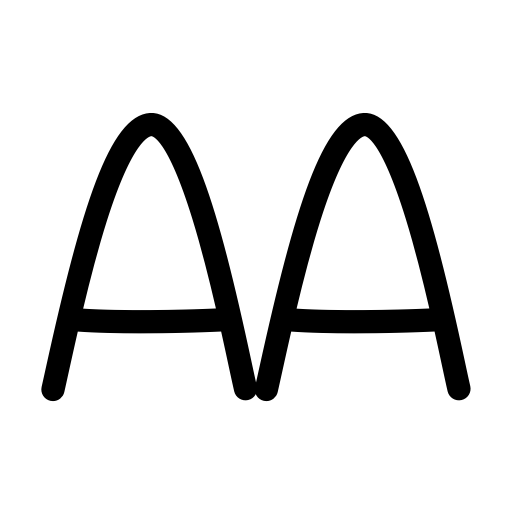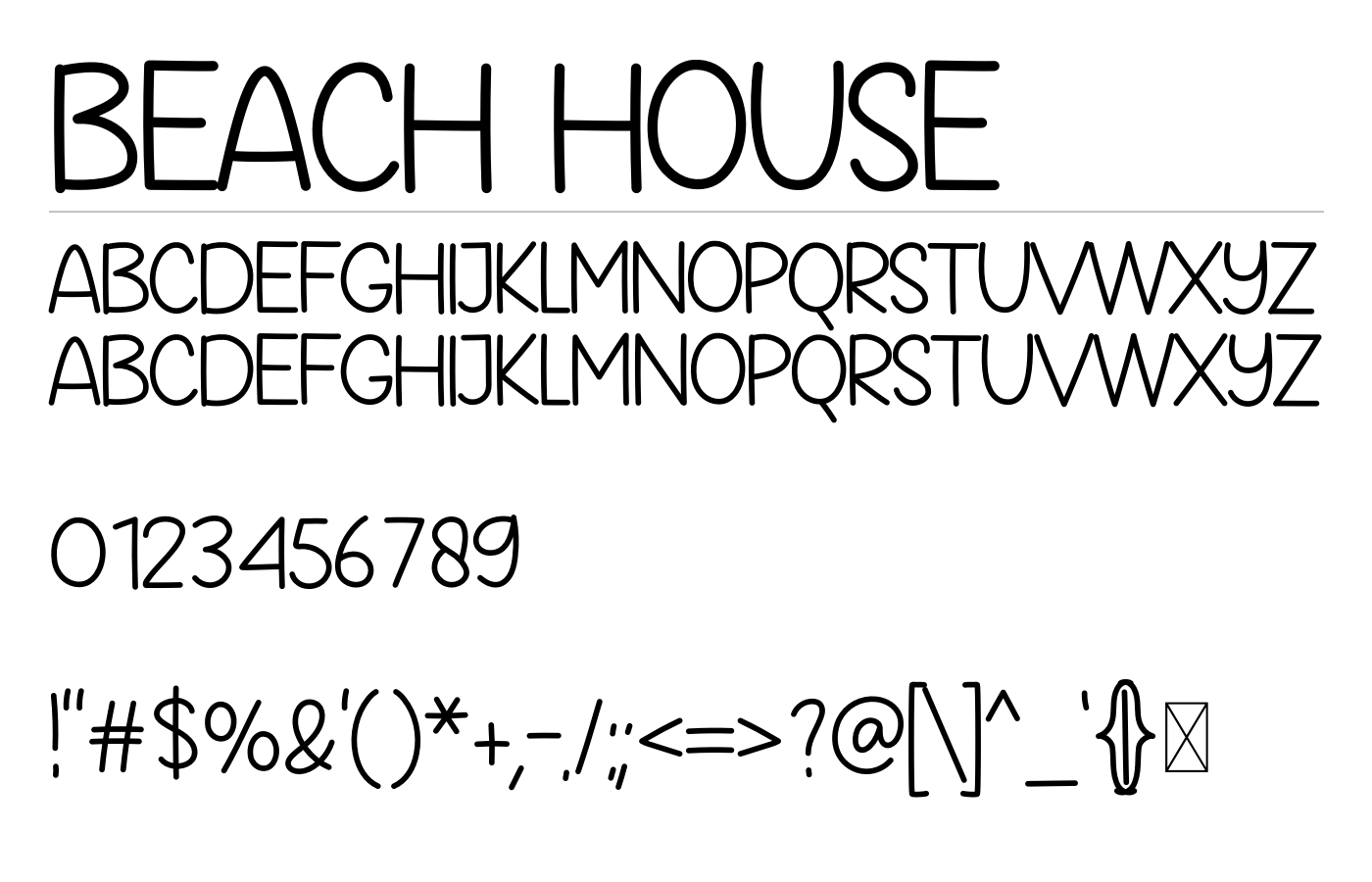
Beach House is a playful, casual sans serif font characterized by its thin, slightly irregular strokes that give it a hand-drawn, friendly appearance. With its tall x-height and open letterforms, this font feels approachable and relaxed, making it perfect for informal branding, children’s materials, or beach-themed designs. Its unique charm works well for logos, packaging, and headlines where a fresh and inviting vibe is desired.
Beach House Font
About Beach House Font